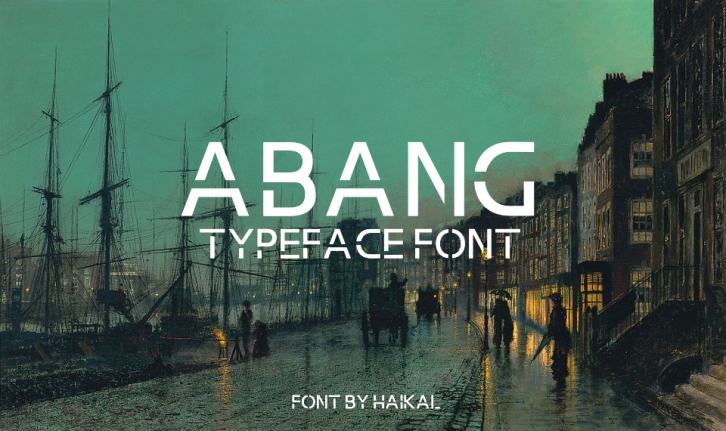
Abang Typeface Font Download
Abang Typeface is a beautiful font that was designed by Graphicfresh. It's a great choice for designers and creatives who need such a font. It was released on September 27, 2016 and the file size is 10.28 MB. Abang Typeface may give a more youthful, expressive and casual look to your project. It is a very beautiful, refined, elegant, and high-quality font.